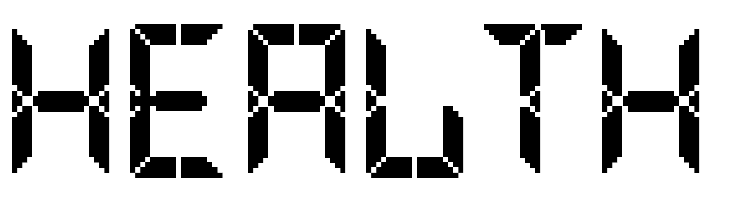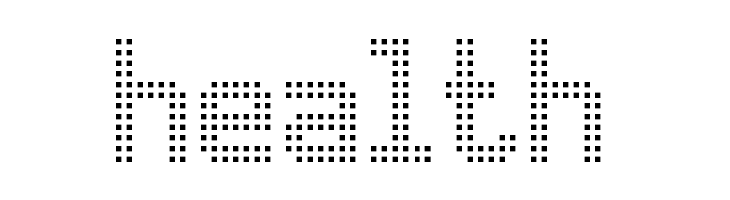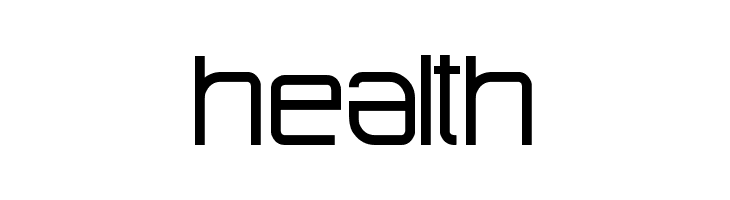
A bold, inline, hand-drawn font with a geometric and outlined style.
An intricate, decorative font with a mystical, ancient script-like appearance.
Handwritten script font with elegant, flowing lines.
A playful, hand-drawn font with irregular strokes and unique serifs.
A modern, geometric font with clean lines and a futuristic style.
A dot matrix font with a retro digital display aesthetic.
A pixelated, grid-based font resembling LED displays with a digital, modern look.
A pixelated, digital font inspired by classic LCD displays, perfect for tech-themed projects.
A pixelated, retro-style font with a digital, grid-like appearance.
A modern, geometric sans-serif font with a clean and balanced design.